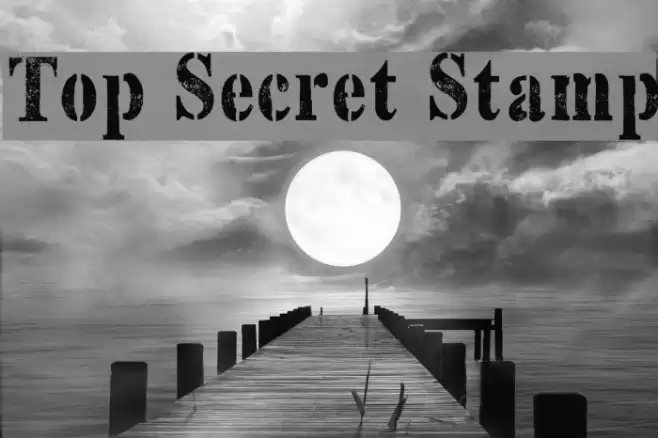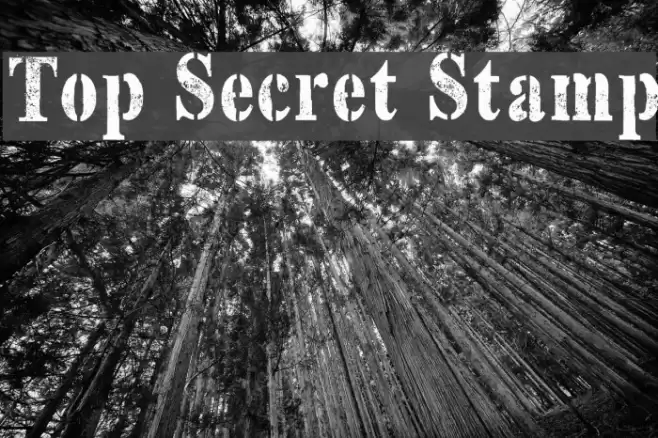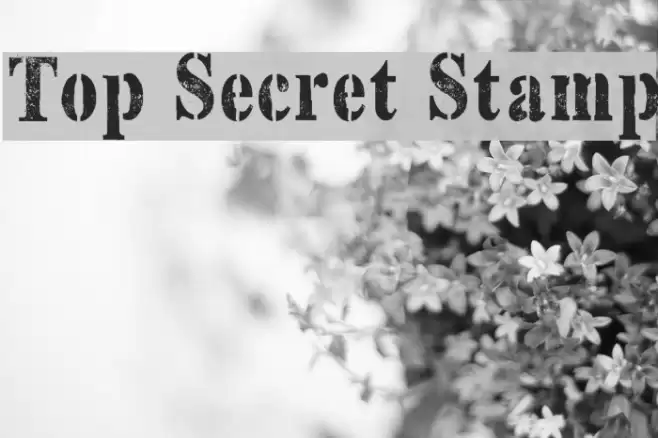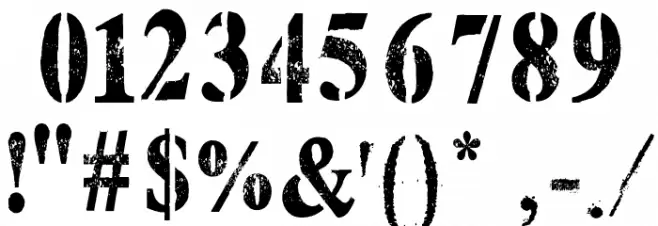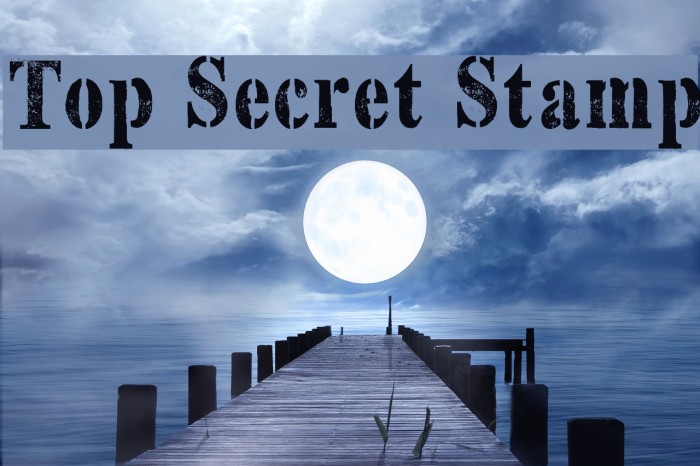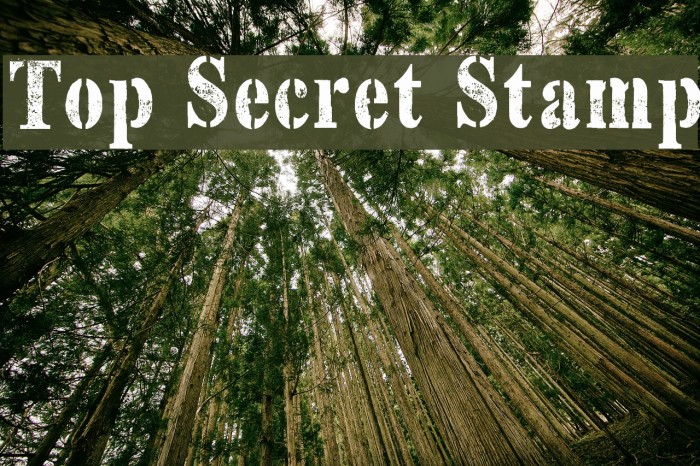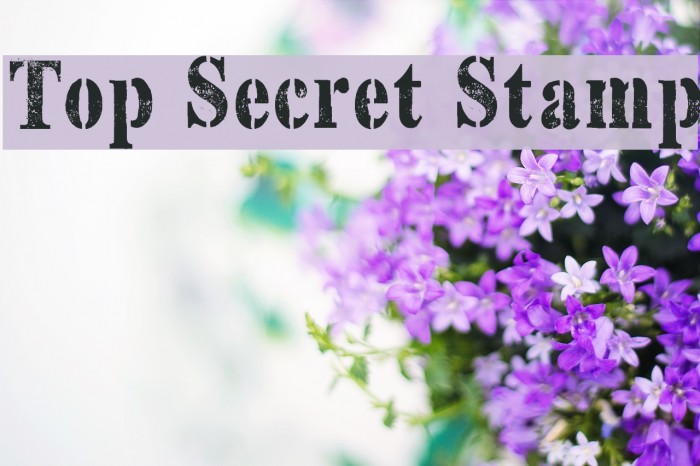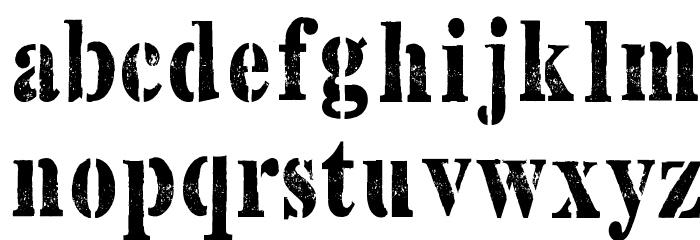
Top Secret Stamp Font
Top Secret Stamp Description
This font features a bold, distressed style reminiscent of vintage typewriter or stamp impressions. The characters have a rough, textured appearance, giving them an aged, worn look. The uppercase and lowercase letters maintain a consistent design, with the uppercase being slightly larger and more pronounced. Numbers and special characters follow the same distressed aesthetic, making them suitable for creating an authentic, rugged feel. The font's unique style is ideal for projects that require a touch of nostalgia or a retro vibe, such as posters, branding, or themed events.
A bold, distressed font with a vintage, stamp-like appearance from Uncategorized fonts.
- Proposed Projects: Ideal for vintage-themed posters, branding, event invitations, or any project needing a retro, rugged aesthetic.
- Overall Style: Vintage